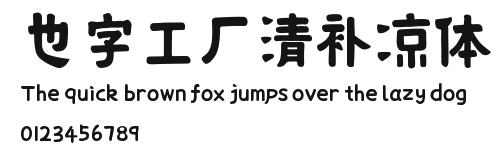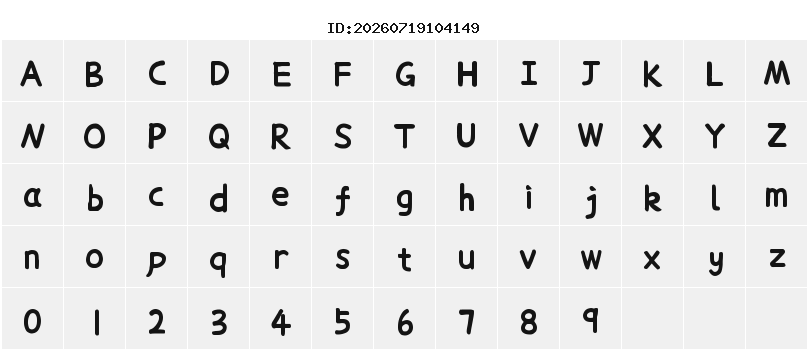
也字工厂清补凉体 Preview
• Font Name: 也字工厂清补凉体
• Full Font Name: 也字工厂清补凉体
• PostScript Name: YEFONTQingBuLiangTi
• Manufacturer: 也字工厂
About 也字工厂清补凉体.TTF
也字工厂清补凉体.TTF is a modern, elegant sans-serif font designed for ultimate readability and visual harmony. Perfect for branding, headlines, web design, and print materials.